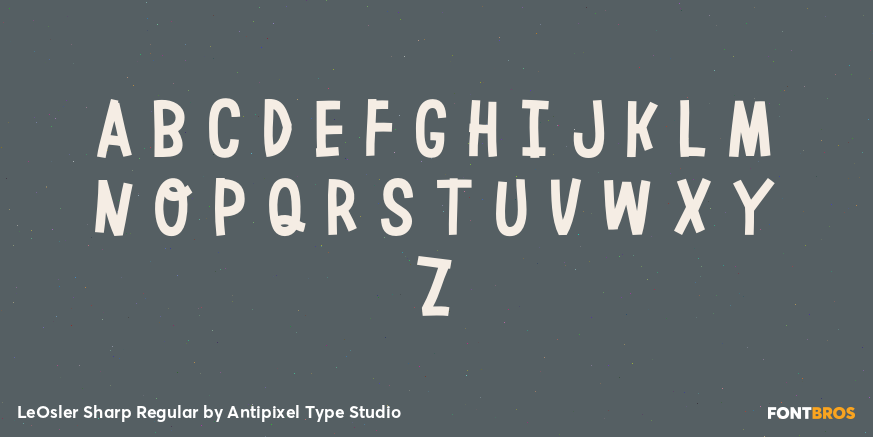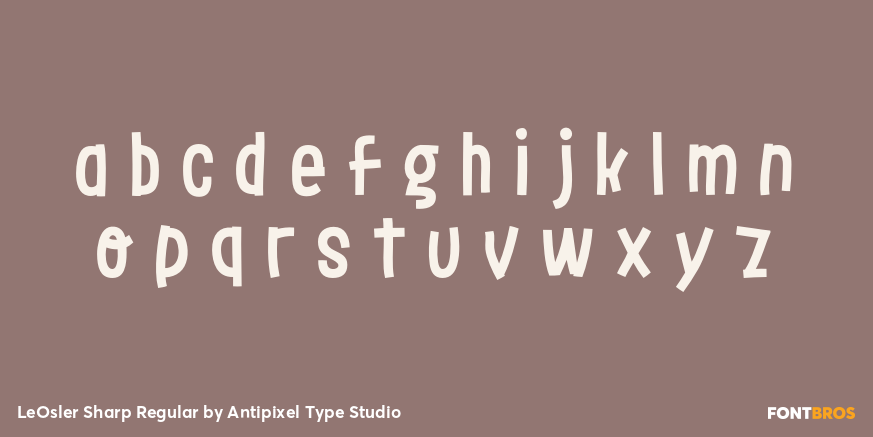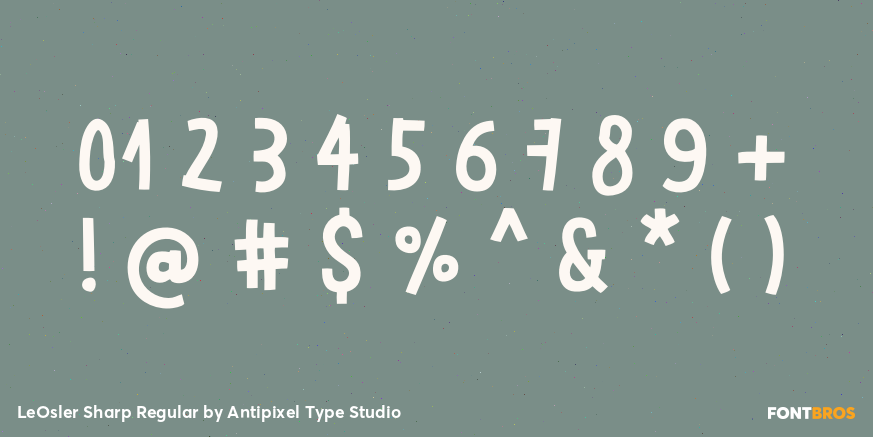
LeOsler Sharp Regular
Font Style by Antipixel Type Studio
LeOsler Sharp Regular is a playful and spirited handwritten font with an illustrative imprint. LeOsler has a slightly condensed structure, a large x-height, aired counters, quirky character design, and a glyph coverage that ensures extended language support with Latin, Greek, and Cyrillic scripts.
LeOsler has three alternating alphabets that slightly differ from one another. These sequentially alternate to avoid the same letterforms or textures appearing next to each other. The Contextual Alternates feature is available for Latin, Greek, and Cyrillic.
• Uppercase & lowercase, numbers, punctuation, ligatures, arrows, emojis, case-sensitive characters, monetary and mathematical symbols, and more!